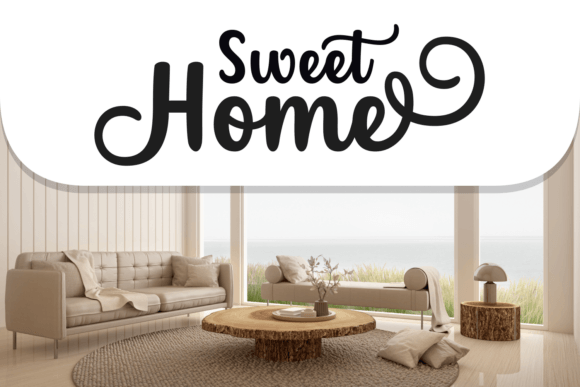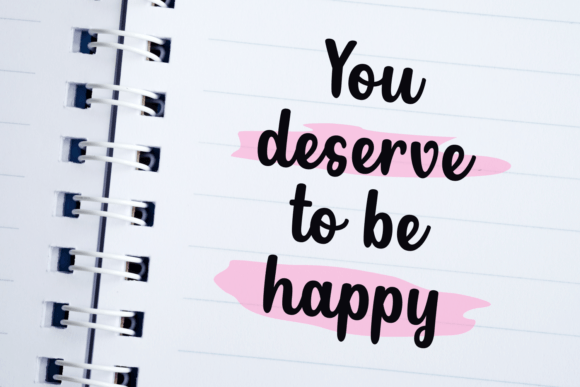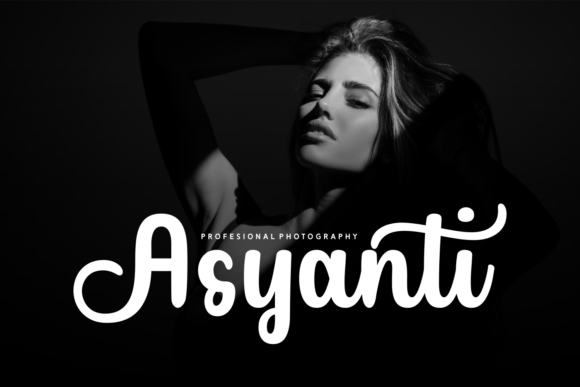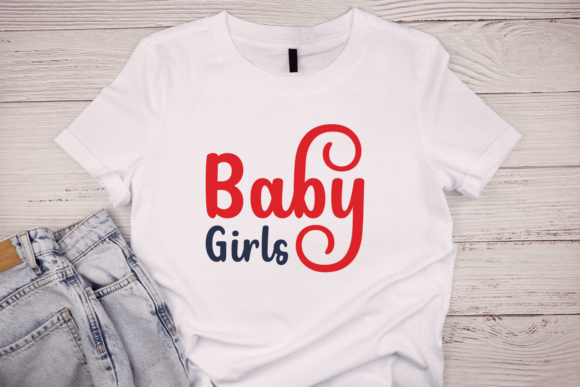
Introduction to Master Peace Font
Do you remember the moment when a particular font choice elevated your design project from good to great? For many designers, it’s a feeling of pure joy, like finding the perfect missing piece of a puzzle. That’s exactly what happens when you discover the Master Peace Font – a stunning, bold script font that brings a touch of elegance and personality to your creative projects.
As a valuable design resource, the Master Peace Font is perfect for logos, headlines, and other design elements that require a high level of sophistication. Its smooth, hand-drawn feel and thick, flowing letters make it an ideal choice for designers who want to add a unique touch to their work. Plus, with its transparent background, you can easily customize it to fit your design needs.
Key Features of Master Peace Font
- High-quality design resource with a unique, elegant style perfect for creative projects.
- Transparent background option allows for seamless integration with any design or image.
- Master Peace Font is available in 5 different sizes, from 12 to 72 points, to suit various design needs.
- Designed at 300 DPI resolution for high-quality printing and digital display.
- Perfect for use in logos, typography, and other creative projects where a touch of elegance is desired.
Honest Review: Master Peace Font
As a designer, I’m always on the lookout for high-quality design resources that can elevate my creative projects. The Master Peace Font is one such resource that I’d like to share my thoughts on.
First impressions: the font is beautiful, with a unique blend of modern and minimalist elements. The transparent background makes it easy to use on any design surface, and the free download option is a definite plus. ✨
- Unique design aesthetic that sets it apart from other fonts
- Transparent background for easy integration into designs
- Free download option makes it accessible to designers of all levels
- May not be suitable for all design projects due to its minimalist style
- Limited character set and language support
- May not be as versatile as other fonts with more extensive features
Overall, I’m impressed with the Master Peace Font’s unique design and ease of use. While it may not be the perfect font for every project, it’s definitely a valuable addition to any designer’s toolkit. If you’re looking for a high-quality font to elevate your creative projects, the Master Peace Font is definitely worth checking out.
Master Peace Font
The Master Peace Font is a high-quality design resource ideal for creative projects. It’s available for free download and can be used to add a touch of elegance to your designs.
Tips for Getting the Most Out of Master Peace Font
To get the most out of Master Peace Font, use it with a transparent background to create a modern and sleek design. You can also pair it with other design elements to create a unique and eye-catching visual effect.
Master Peace Font is ideal for use in creative projects, such as social media graphics, posters, logos, and presentations. It’s also suitable for use in documents, reports, and other written content where a high-quality font is required.